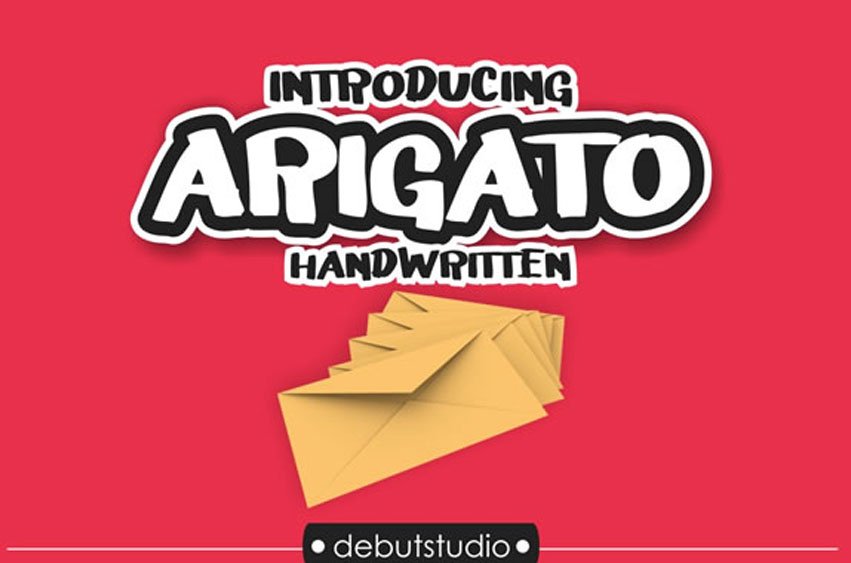
Arigato Font is a handdrawn marker font created by the Debut Studio.
It fits in headlines, logos, posters, flyers, invitations, name cards, branding materials, print media, editorial layouts, and many more.